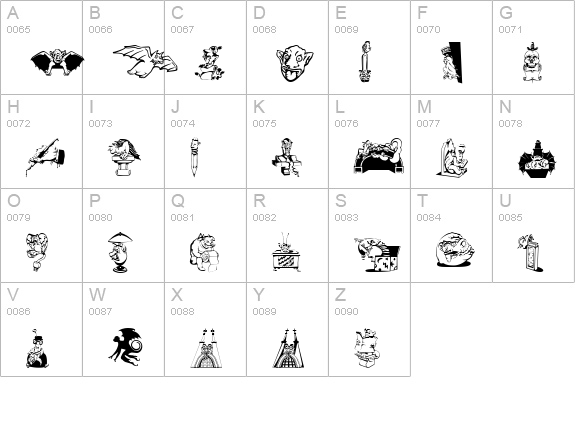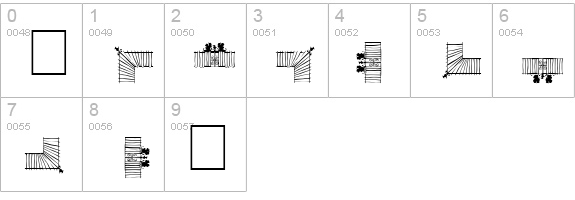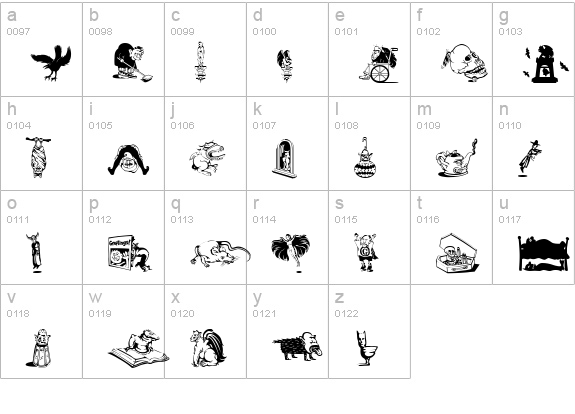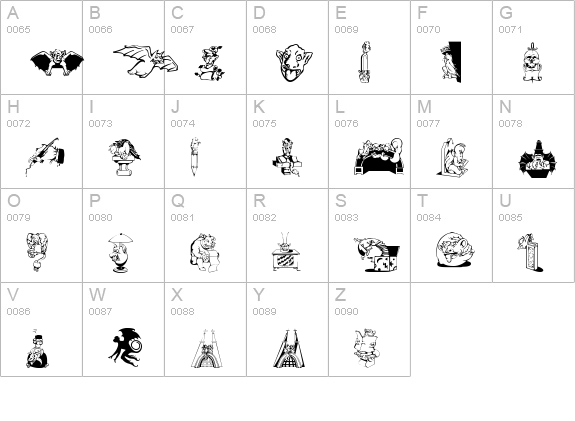
Gargoyles de France Font Details
Introducing Gargoyles de France font, a captivating and intricate typeface inspired by the ancient and mysterious stone guardians of French architecture. This unique font features elaborate details and ornate flourishes that evoke a sense of gothic elegance and timeless beauty. Gargoyles de France font is perfect for adding a touch of old-world charm to your design projects, whether you're creating invitations, posters, branding materials, or anything in between. Its intricate design captures the essence of medieval craftsmanship and adds a touch of sophistication to any text. Best of all, Gargoyles de France font is available for free download at FontsMarket.com. Now you can easily access this stunning font and elevate your designs with its unique and eye-catching aesthetic. Embrace the allure of the past with Gargoyles de France font and bring a touch of historic charm to your creations.